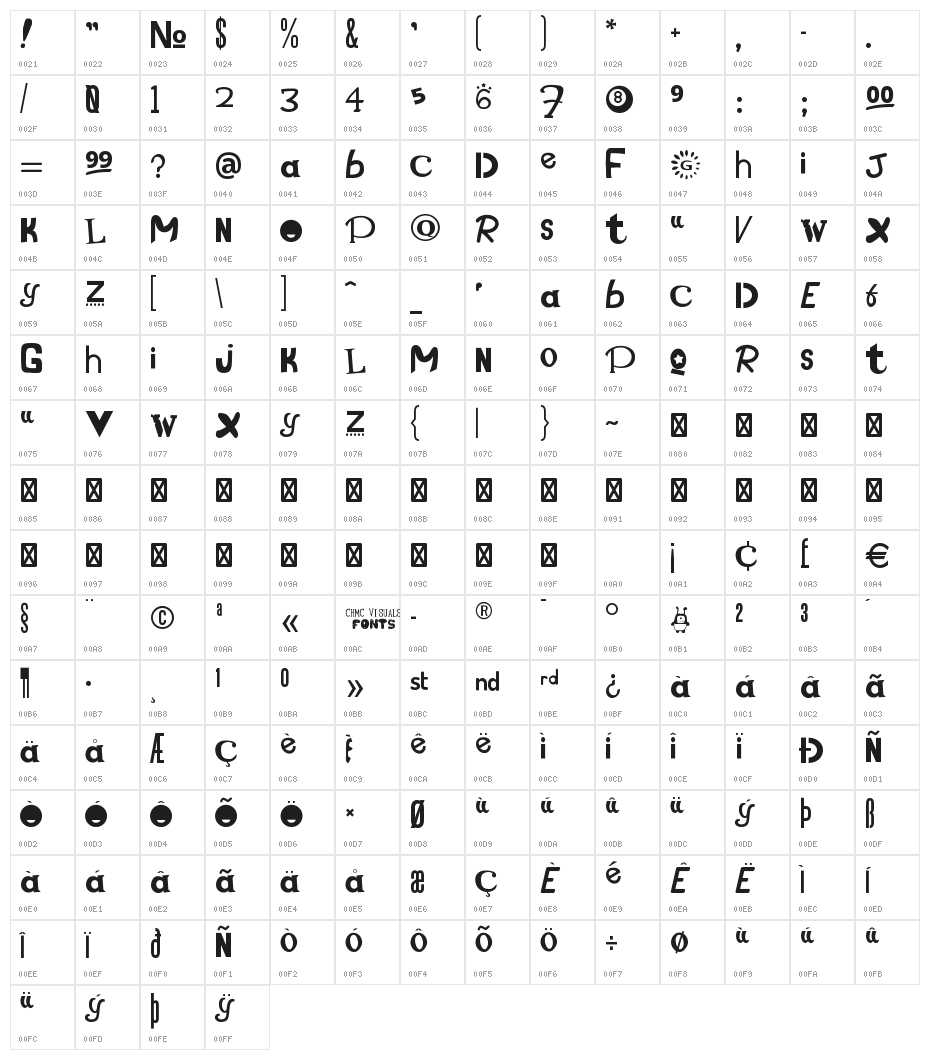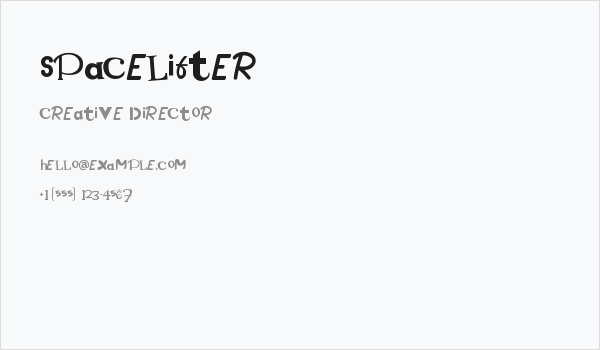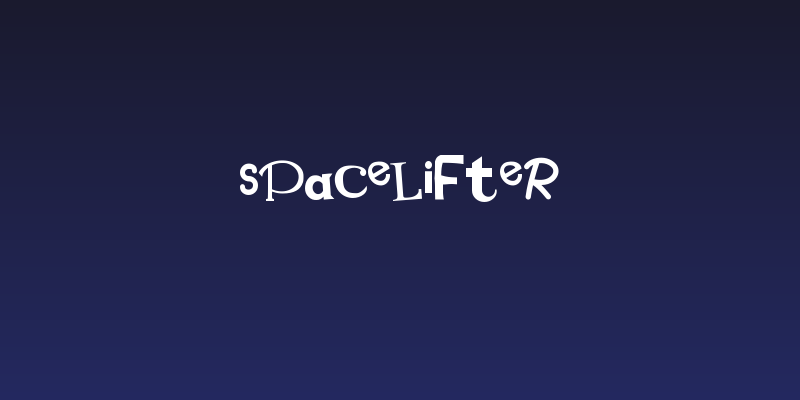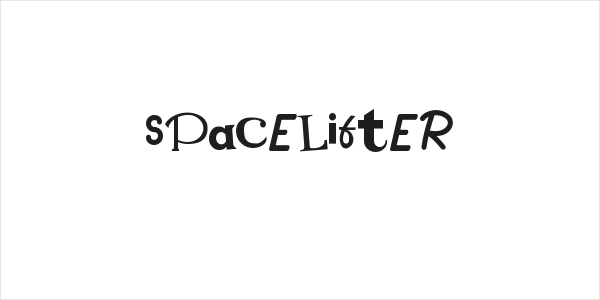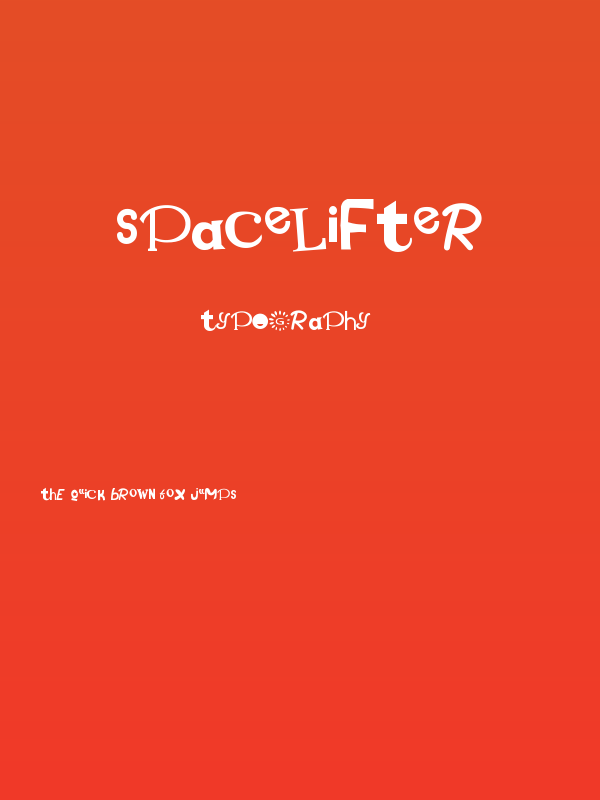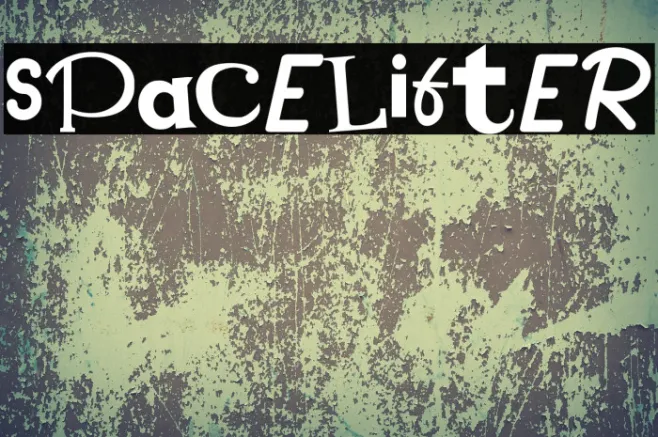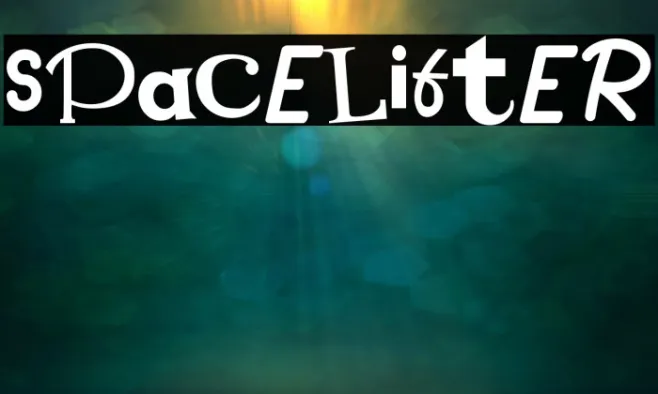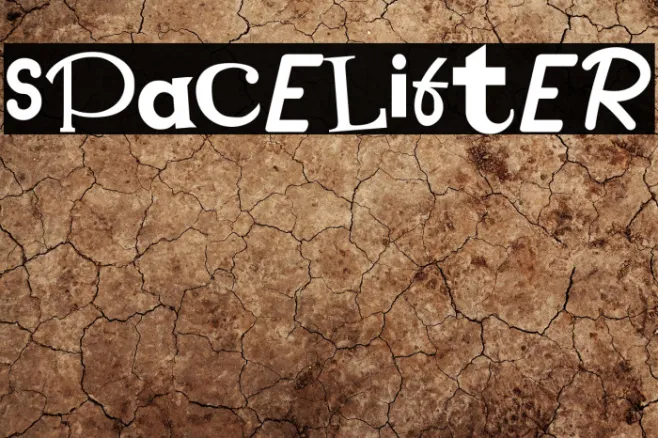
Spacelifter Font
Spacelifter Description
This font features a playful and whimsical design, characterized by its bold and varied letterforms. Each character exhibits unique and creative elements, such as the sunburst pattern in the letter 'G' and the quirky, uneven strokes throughout. The font combines both sharp and rounded edges, giving it a dynamic and lively appearance. The numbers and special characters continue this theme, with stars and dots adding extra flair. This font is highly decorative, making it suitable for projects that require a fun and eye-catching typeface.
| Proposed Projects | Ideal for children's book covers, playful branding, party invitations, and creative posters. |